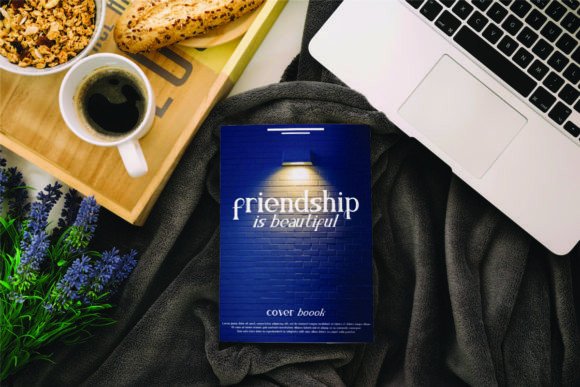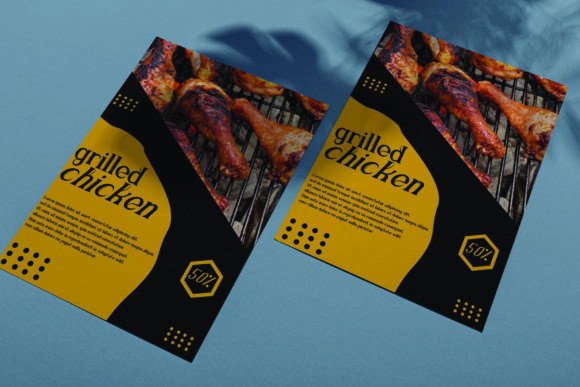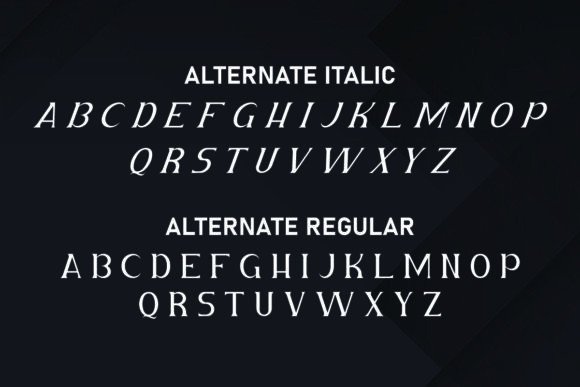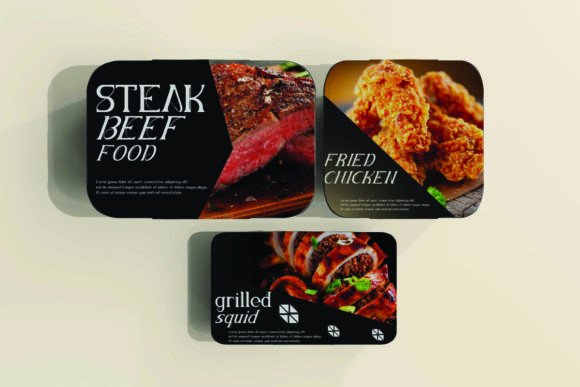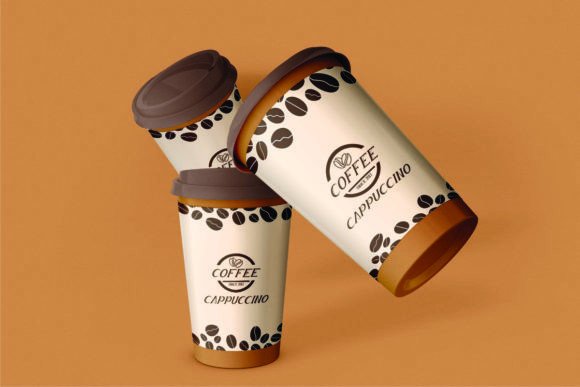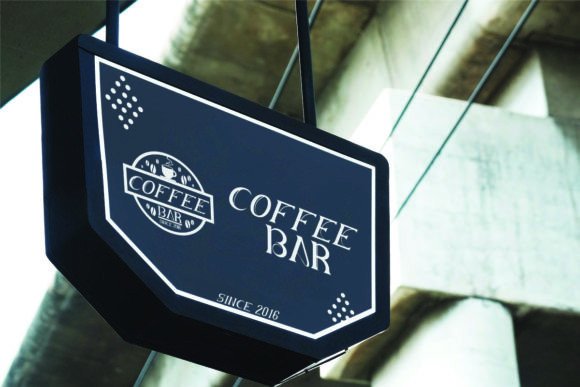
Timeless Elegance: Discover the Alzam Font
As designers, we’ve all been there – staring at a blank page, trying to find the perfect font to bring our vision to life. For me, it’s the moment when the words start flowing, and the design begins to take shape. And that’s exactly what happens when you introduce the Alzam Font into your creative process. Inspired by the classic style of ancient Rome, this unique serif display font is a masterclass in timeless elegance.
The Alzam Font is designed to be both stylish and legible, making it perfect for a wide range of projects, from book covers and branding logos to brochures and business cards. Whether you’re a seasoned designer or just starting out, the Alzam Font is a valuable addition to your toolkit, offering a level of sophistication and refinement that’s hard to find in modern fonts.
- Unique Characteristics: Alzam Font features a unique blend of modern and vintage elements, with intricate details and ornate designs.
Alzam Font Review
Overall, I think the Alzam font has some great qualities, but also some areas where it falls short. Let’s start with the positives.
✨ The first thing I noticed was how elegant and sophisticated the font looks. The rounded edges and subtle curves give it a friendly, approachable feel that would be perfect for designs where you want to convey a sense of approachability and trust.
✨ The font also has a wide range of weights, from ultra-light to extra-bold, which gives you a lot of flexibility when it comes to choosing the right style for your design. Whether you’re looking for a delicate, whispery font or a bold, attention-grabbing one, Alzam has got you covered.
✨ Finally, I was impressed by the font’s versatility – it works well in both digital and print applications, making it a great choice for designers who need to create content for multiple channels.
⚠️ One of the main limitations of Alzam is its limited language support. While it covers the usual suspects like English and Spanish, it falls short when it comes to more complex languages like Arabic or Chinese.
⚠️ Another area where Alzam falls short is its readability at small font sizes. While it’s not unreadable, it can be a bit tricky to read at very small sizes, which may be a problem for designers who need to create content for mobile or web applications where font sizes are often smaller.
⚠️ Finally, I was a bit disappointed by the lack of OpenType features in Alzam. While it’s not a deal-breaker, it would be nice to see more advanced features like ligatures or stylistic sets.
Overall, I think the Alzam font is a solid choice for designers who are looking for a versatile, elegant font that works well in a variety of applications. While it has some limitations, it’s a great addition to any designer’s toolkit. Just be aware of its limitations and choose it wisely.
Tips for Getting the Most Out of Alzam Font
Use Alzam font for headings and titles to add a touch of elegance to your designs. Experiment with different font sizes and colors to create a visually appealing design. Use Alzam font in combination with other fonts to create a unique and creative look.
Common Use Cases for Alzam Font
Alzam font is ideal for use in corporate branding, advertising, and even web design. It can be used for creating logos, business cards, and even social media graphics. The font’s elegant and sophisticated look makes it perfect for use in high-end designs.